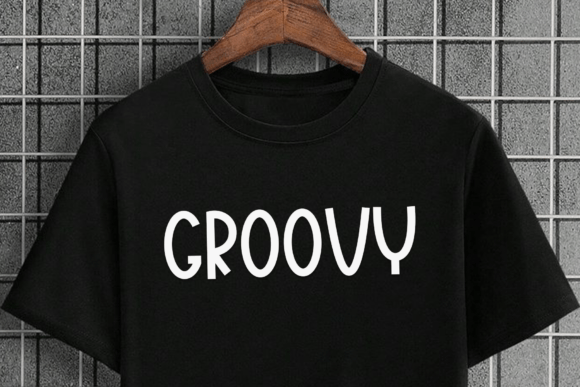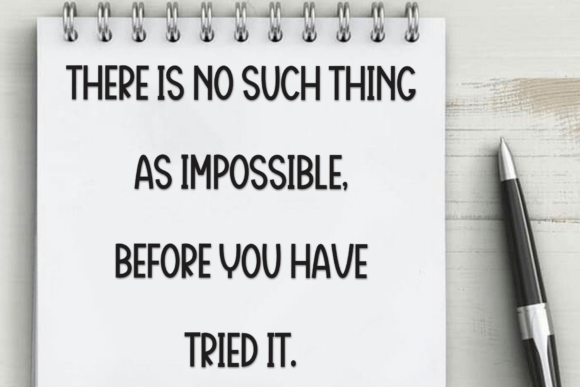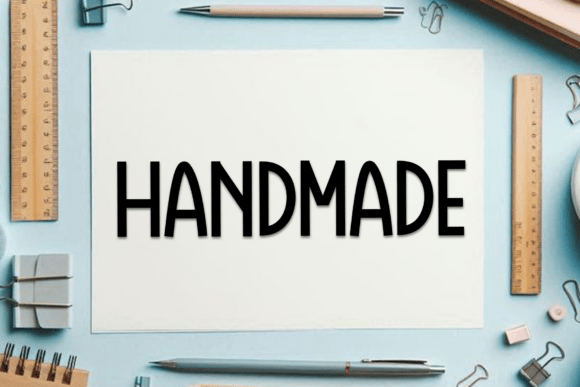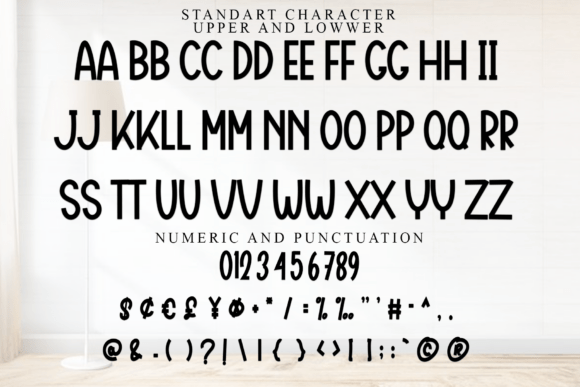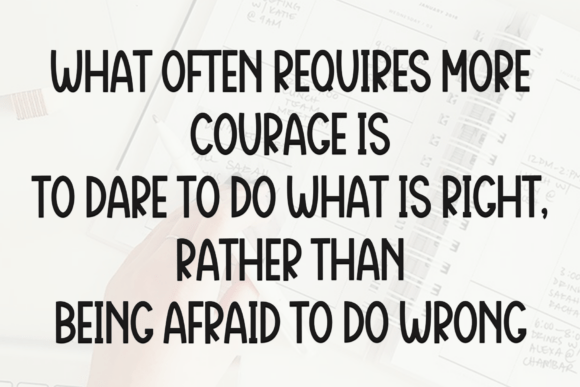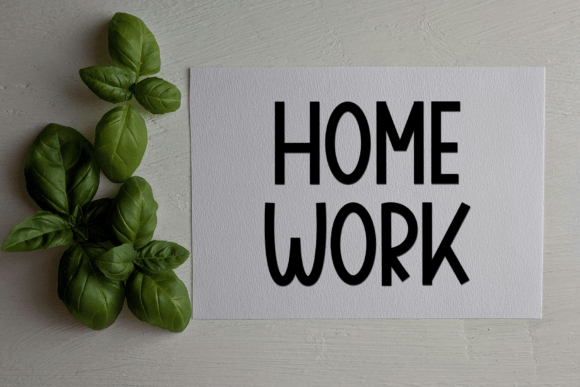
Introducing Charming Solitude Font: A Festive and Merry Typeface for the Holiday Season
Are you looking for a font that captures the essence of the holiday season? Do you want to add a touch of magic to your designs and make them stand out? Look no further than Charming Solitude Font, a festive and merry typeface that is perfect for greeting cards, gift tags, and holiday-themed projects.
A Festive and Whimsical Typeface
Charming Solitude Font is a decorative typeface that is designed to bring a cheerful and nostalgic ambiance to your words. With its whimsical flair and enchanting elements, this font is sure to add a touch of wonder to your designs. Whether you’re creating holiday cards, gift tags, or festive posters, Charming Solitude Font is the perfect choice.
Charming Solitude Font is a versatile typeface that is perfect for designers and crafters alike. With its PUA encoding, you can access all of the amazing glyphs and ligatures with ease, making it simple to create stunning designs that will impress your audience. Whether you’re a professional designer or a crafter looking for a unique font for your projects, Charming Solitude Font is a great choice.
Key Features of Charming Solitude Font
- Festive and Merry: Charming Solitude Font is a festive and merry typeface that captures the spirit of the holiday season.
- Decorative Elements: This font features decorative elements and whimsical flair, making it perfect for holiday-themed projects.
- PUA Encoded: Charming Solitude Font is PUA encoded, making it easy to access all of the amazing glyphs and ligatures.
- Perfect for Designers and Crafters: This font is perfect for designers and crafters looking for a unique and versatile typeface for their projects.
Uses for Charming Solitude Font
Charming Solitude Font is a versatile typeface that can be used for a variety of projects, including:
- Greeting Cards: Create festive and merry greeting cards for the holiday season.
- Gift Tags: Add a touch of magic to your gift tags with Charming Solitude Font.
- Holiday Posters: Create stunning holiday posters with this decorative typeface.
- Craft Projects: Use Charming Solitude Font for a variety of craft projects, such as scrapbooking and DIY gifts.
Tips for Using Charming Solitude Font
Here are a few tips for using Charming Solitude Font:
- Experiment with Different Sizes: Try using Charming Solitude Font in different sizes to add visual interest to your designs.
- Combine with Other Fonts: Combine Charming Solitude Font with other fonts to create a unique and eye-catching design.
- Use Decorative Elements: Take advantage of the decorative elements and glyphs included with Charming Solitude Font to add a touch of magic to your designs.
Charming Solitude Font is a festive and merry typeface that is perfect for designers and crafters looking for a unique and versatile font for their holiday-themed projects. With its decorative elements, whimsical flair, and PUA encoding, this font is sure to add a touch of enchantment to your designs. So why wait? Download Charming Solitude Font today and let your typography shine with the magic of this beautiful font!